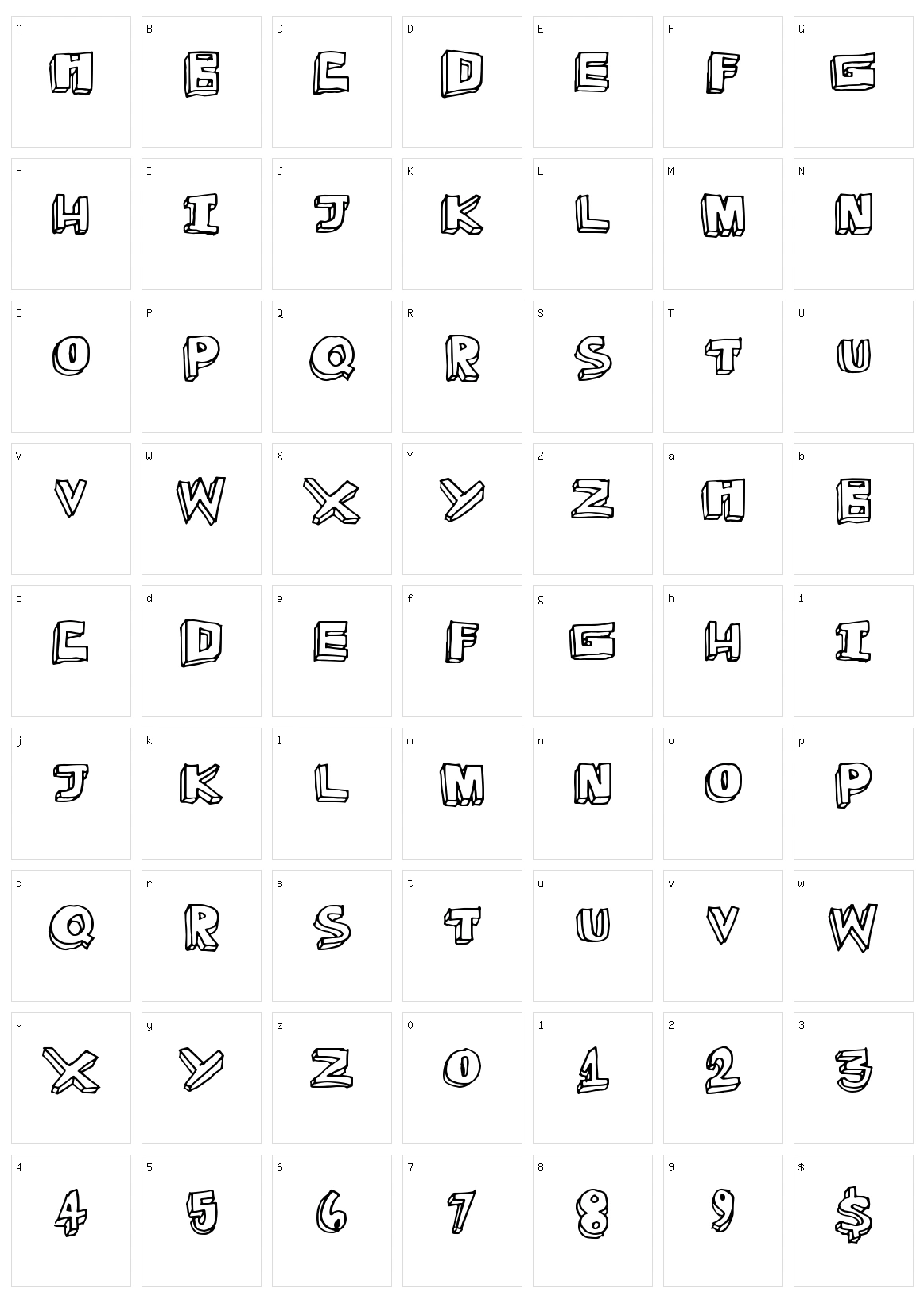
The free font Mega Play is carefully designed by Xerographer Fonts, showcasing a thoughtful balance of creativity and usability and falls under the Cartoon font style. When you download the ZIP file, it contains only 20.59 KB of font files, making it lightweight and quick to download. Please review the license details below to understand permitted usage and distribution rights. If license information is not available, we recommend using this font for personal projects only or contacting the author directly for commercial usage permissions.